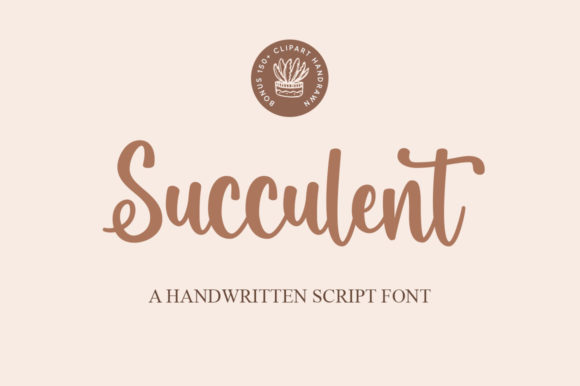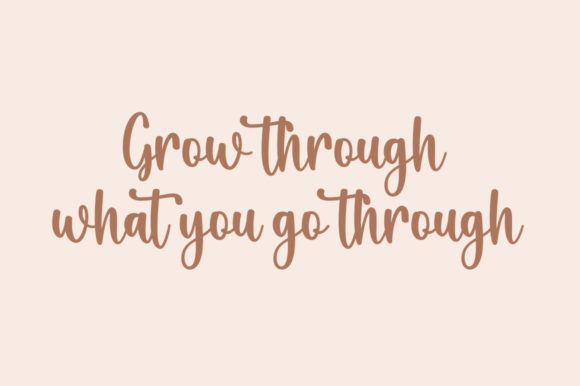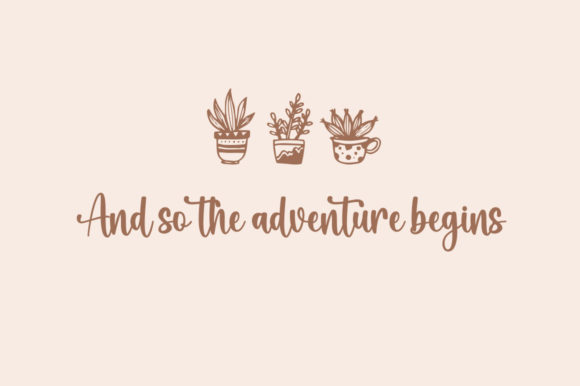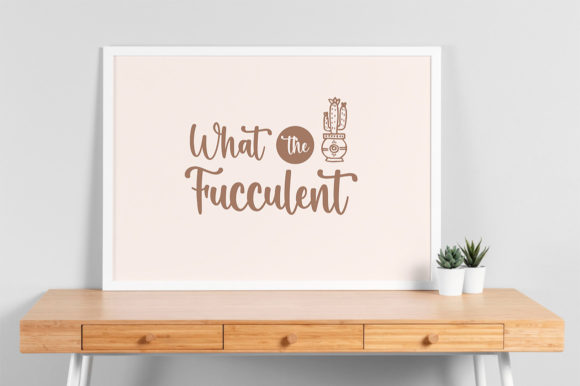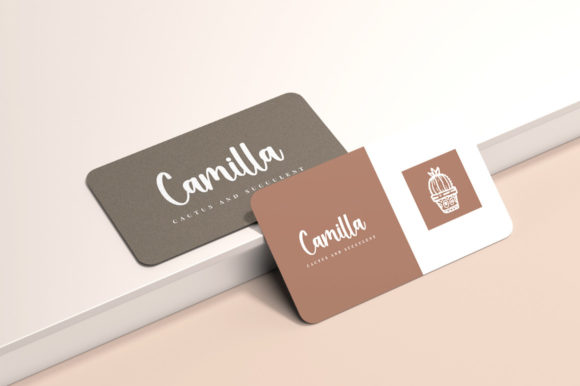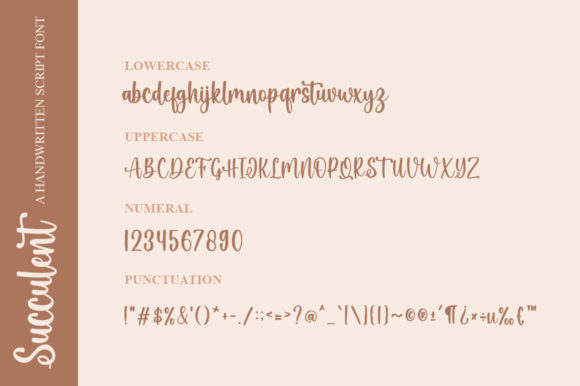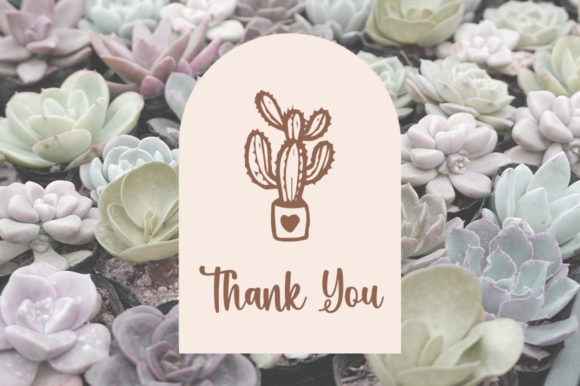
Succulent Font
About Succulent Font
Succulent is a lovely script font featuring charming, playful characters that seem to dance along the baseline. It will elevate a wide range of crafting ideas, from cards, to branding, labels and much more.